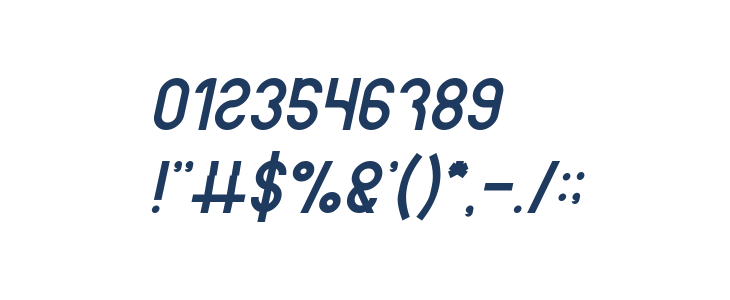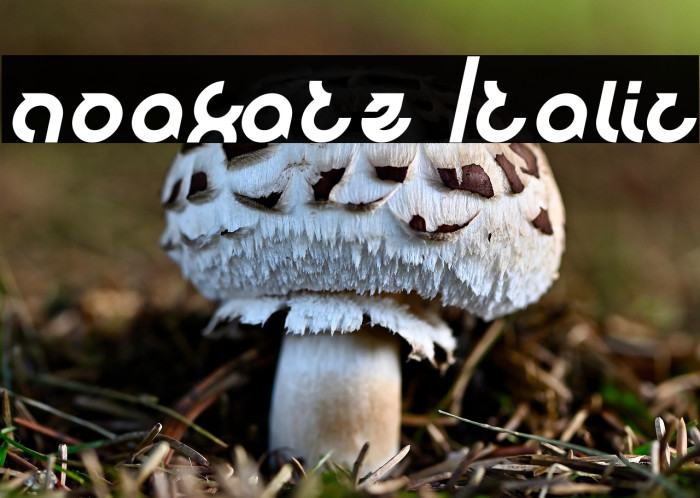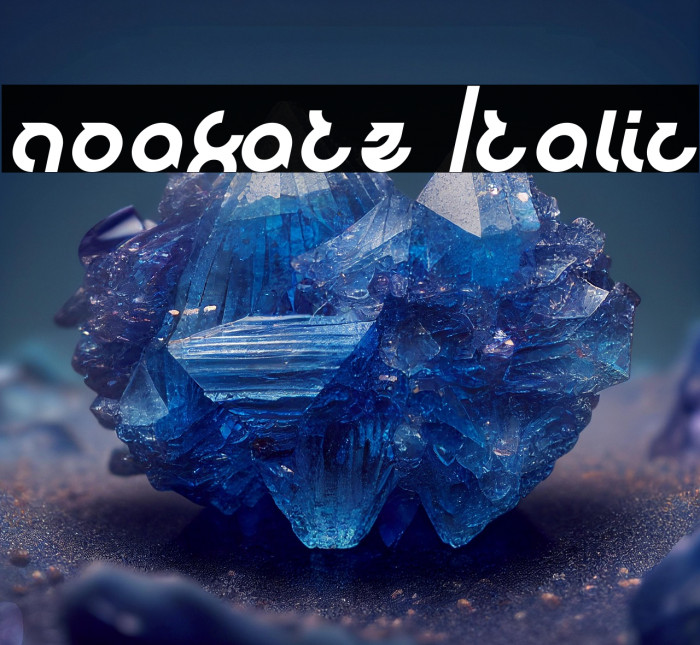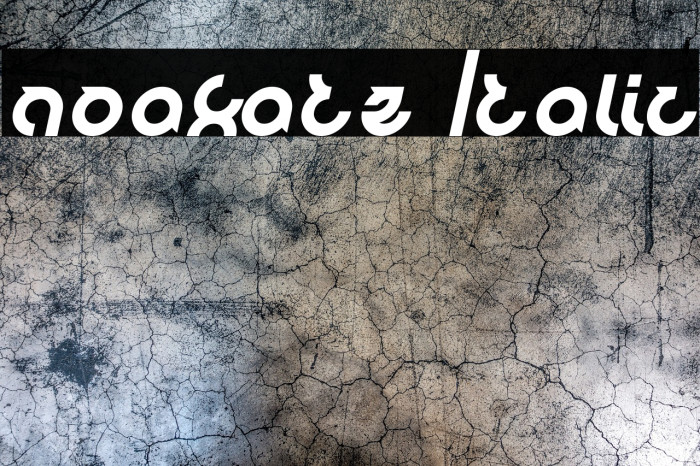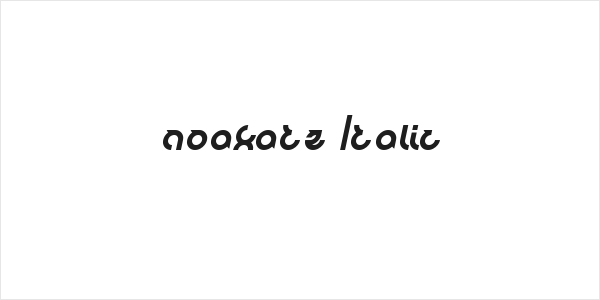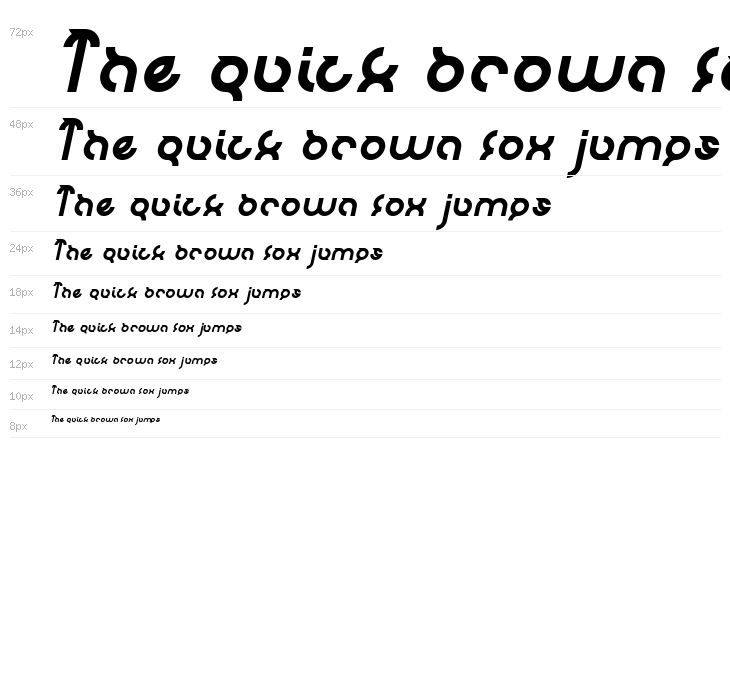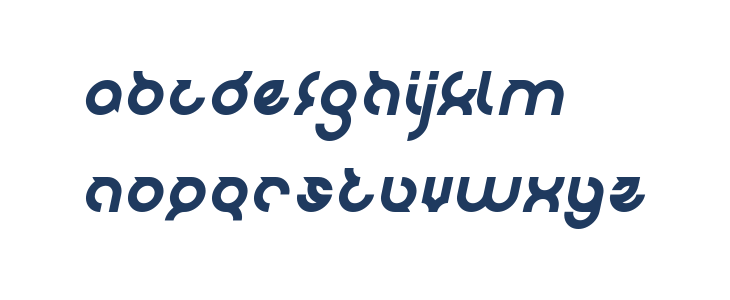
noakatz Italic Font
noakatz Italic Description
This font features a dynamic and modern italic style with a distinct slant, giving it a sense of motion and energy. The characters are bold and slightly condensed, with smooth curves and sharp edges that create a striking visual impact. The uppercase letters maintain a consistent height, while the lowercase letters are designed with unique, playful forms that add character and flair. The numerals are bold and easily readable, complementing the overall design. Special characters are included, maintaining the same bold and energetic style. This font is suitable for projects that require a modern and eye-catching aesthetic.
| Proposed Projects | Ideal for branding, advertising, posters, and any project needing a modern, energetic look. |